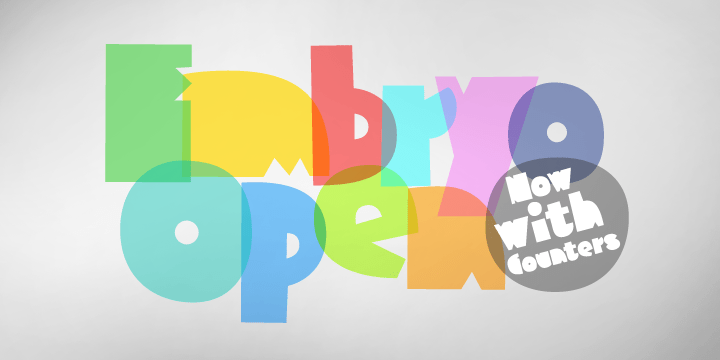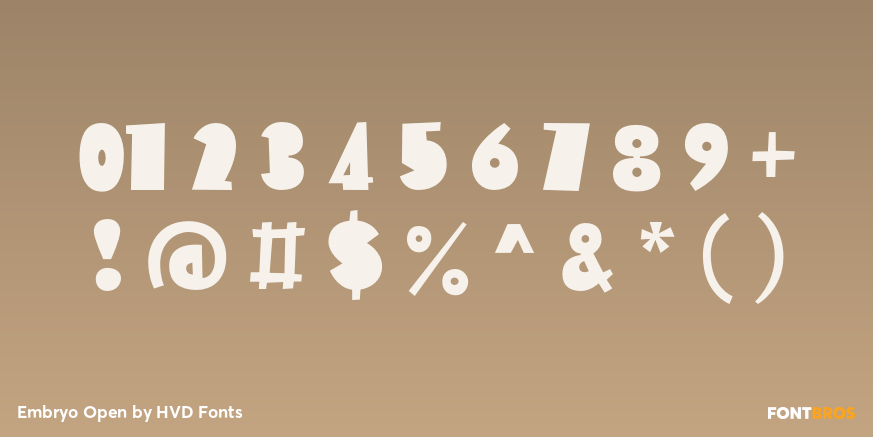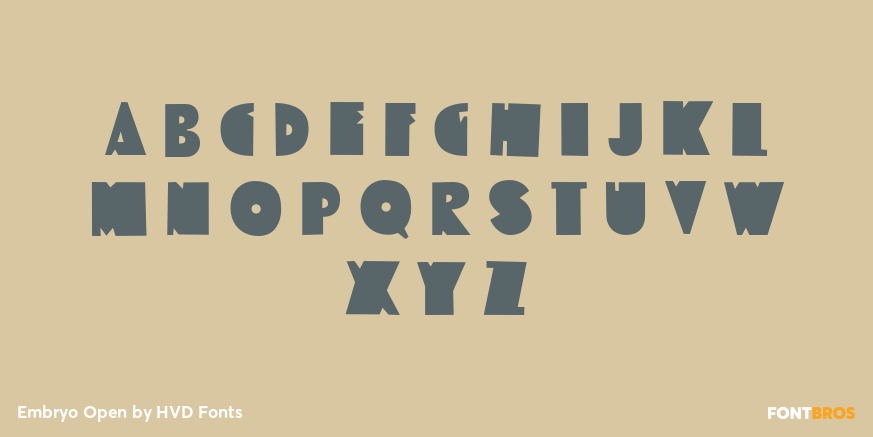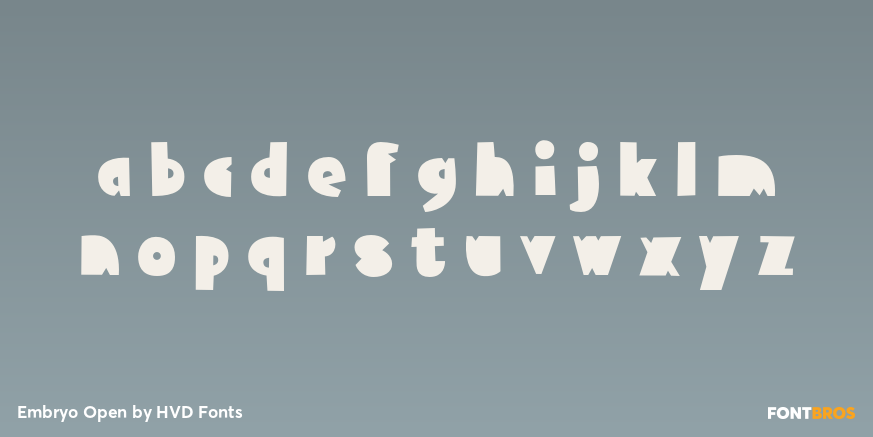
Embryo Open
Font Family by HVD Fonts
Embryo Open is the companion of the Embryo Typeface. In contrast to its forerunner it is equipped with counters.
These superheavy sweet fonts are perfect for logos, posters or flyers and can be used nicely together.
Embryo Open has an extended character set to support Central and Eastern European languages.